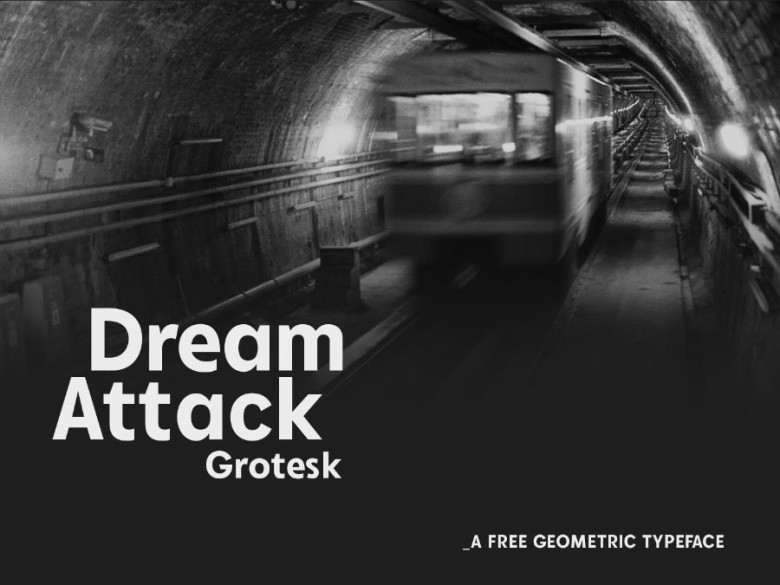
Dream Attack Grotesk Font
You will enjoy a new sans serif. Its primary is Dream Attack Grotesk Font. Dream Attack Grotesk designed and shared by Rafael Nogueira. Dream Attack Grotesk is a new sans-serif typeface inspired in the 80’s and in the 90’s. Created to be shocking and musical. Dream Attack Grotesk font is applicable for any type of graphic design – web, print, motion graphics etc and perfect for t-shirts and other items like posters, logos …